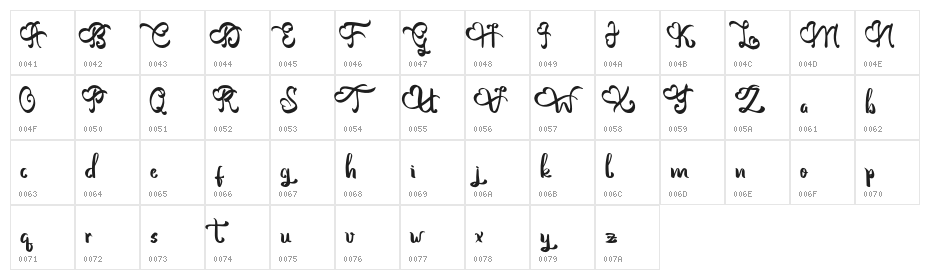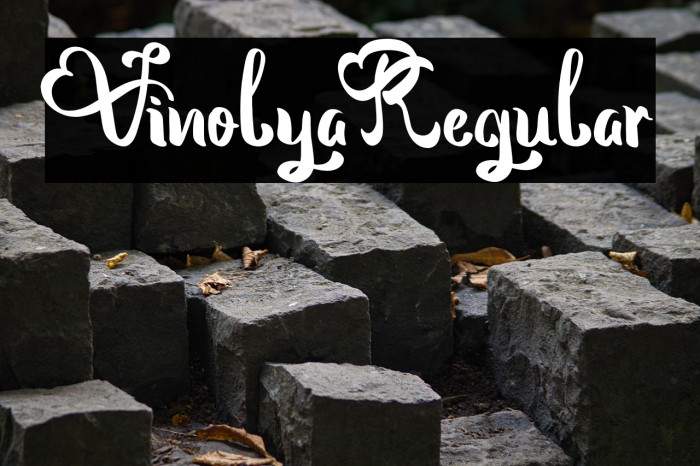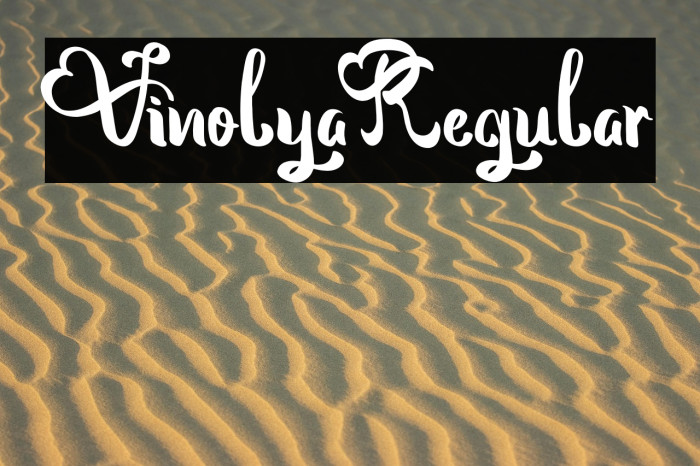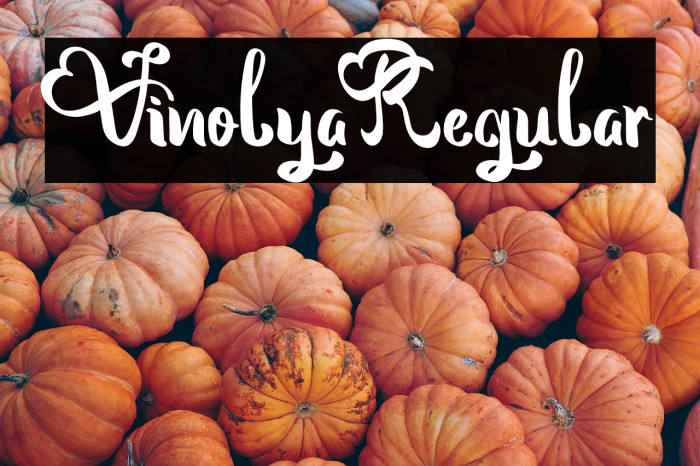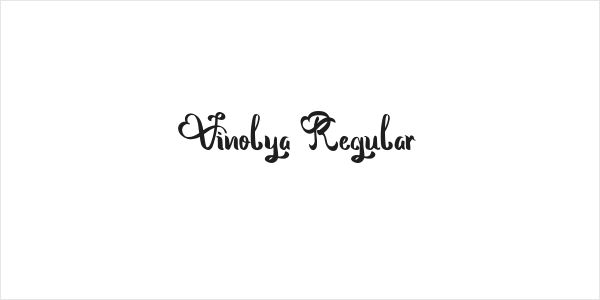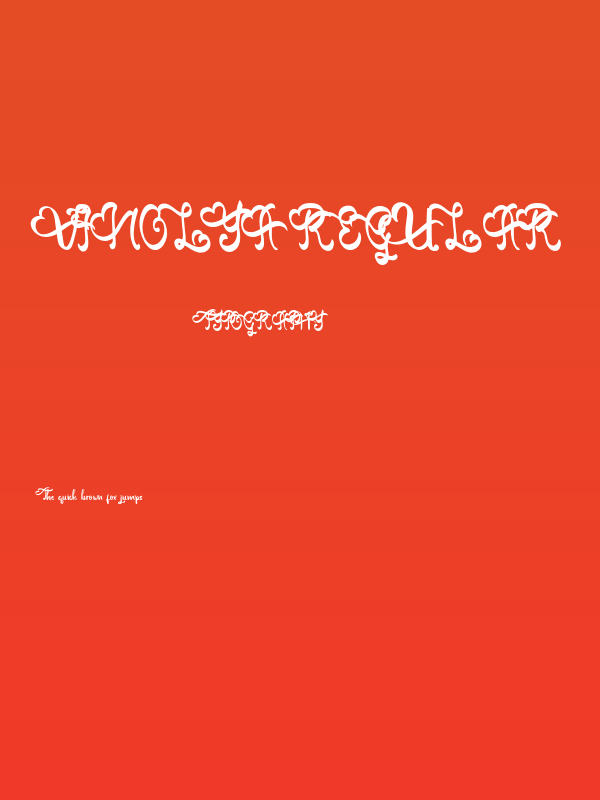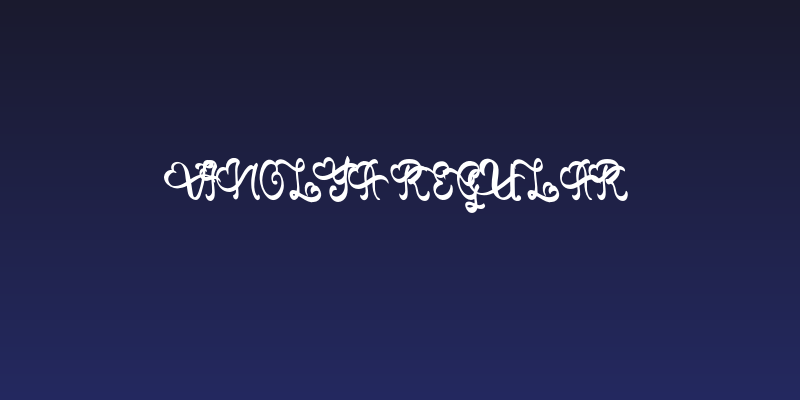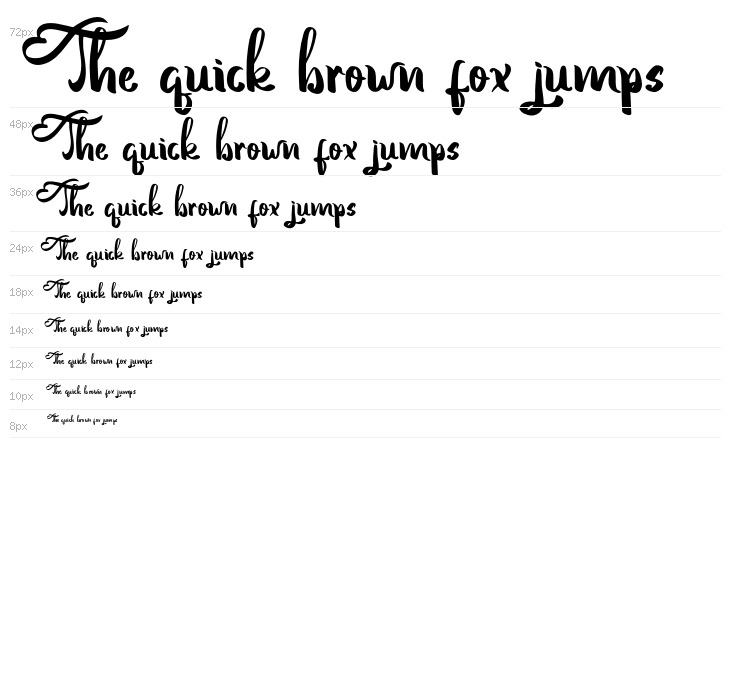
Vinolya-Regular Font
Vinolya-Regular Description
This font features a whimsical and decorative style with a playful, handwritten appearance. The uppercase letters are adorned with intricate swirls and loops, giving them a unique and artistic flair. The lowercase letters maintain a more straightforward, yet still charming, design that complements the uppercase. The font has a bold presence, with thick strokes that enhance its visibility and impact. It is well-suited for creative projects that require a touch of elegance and personality. The characters are closely spaced, adding to the cohesive look of the text.
| Proposed Projects | Ideal for invitations, greeting cards, logos, and branding materials that seek a playful yet elegant touch. |